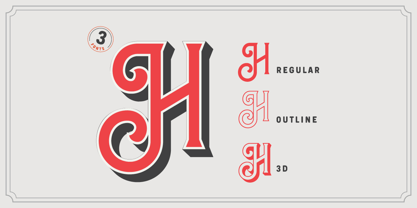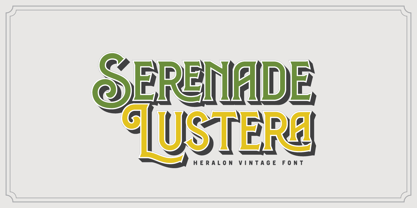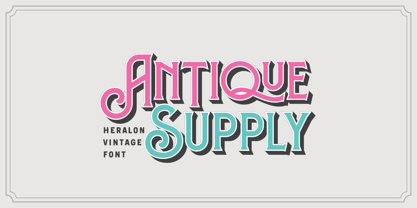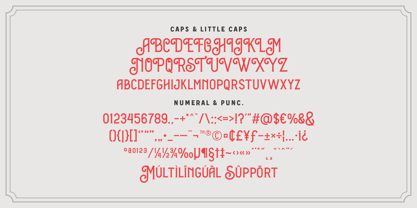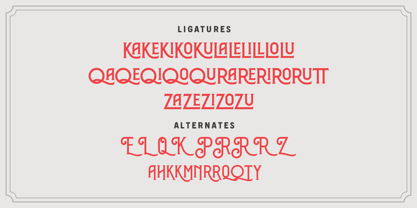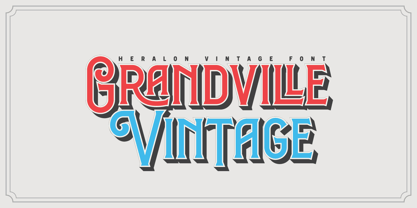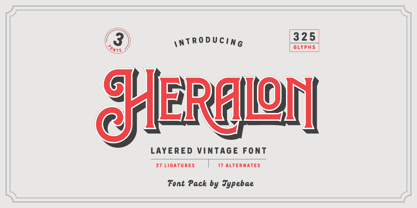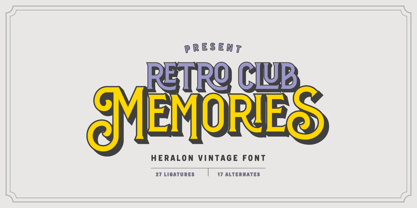
Heralon
by Typebae
The Heralon Font Family was designed by Iqbal Pauji and published by Typebae. Heralon contains 3 styles and family package options. More about this family
Heralon is a layered vintage decorative serif font designed to bring bold and stylish impact to your projects. Featuring 3 unique styles (Regular, 3D, and Outline), this font allows you to mix and match for stunning layered typography. It comes with 26 ligatures and 21 stylistic alternates, giving you endless creative possibilities. Perfect for posters, logos, packaging, signage, and editorial work, Heralon combines ornate vintage charm with versatile layered options, making it ideal for both digital and print designs. What’s Included; Heralon Regular, 3D & Outline 26 Ligatures & 21 Stylistic Alternates Caps, Little Caps, Numbers & Punctuation Multilingual Support & PUA Encoded
Designers: Iqbal Pauji
Current Foundry: Typebae